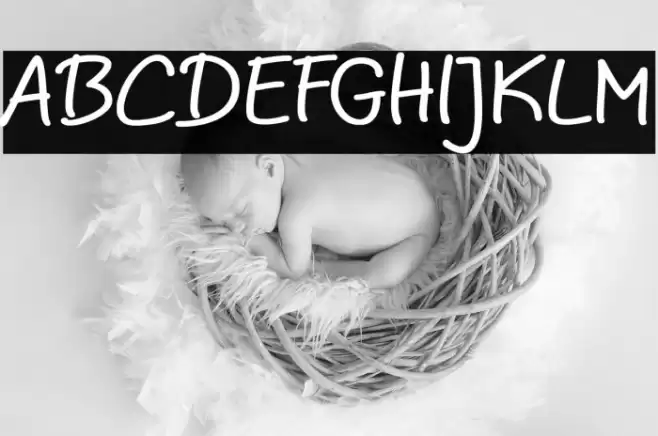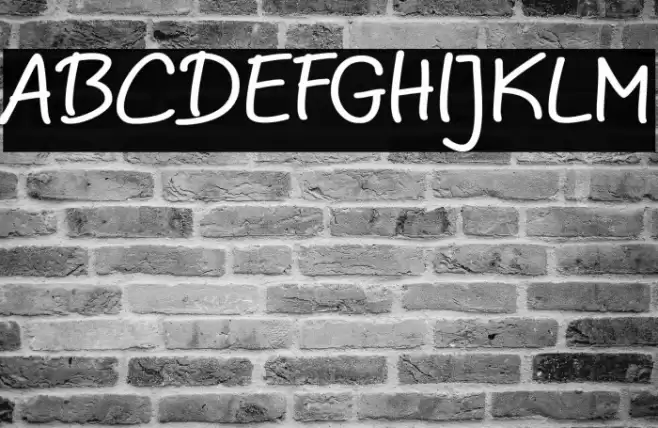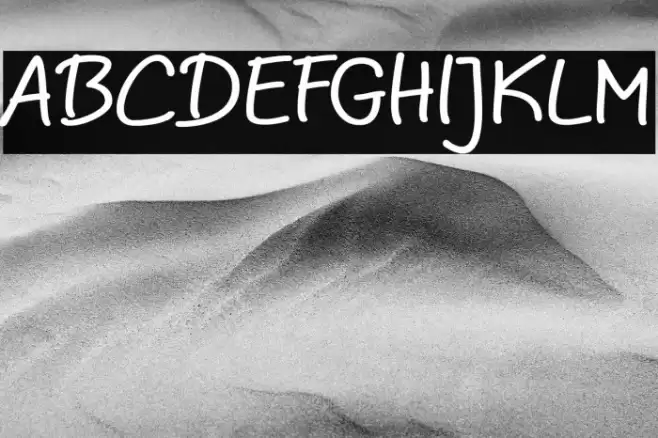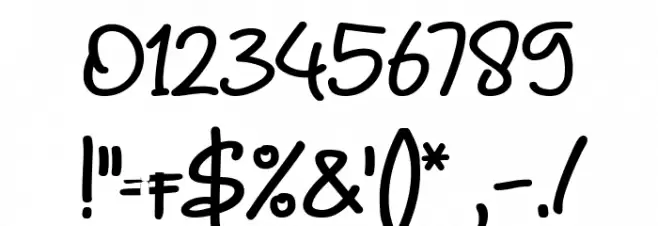
Noela Sherly Font
Noela Sherly Description
This font features a playful and casual handwritten style, characterized by its smooth, flowing curves and slightly irregular letterforms. The uppercase letters are bold and rounded, giving a friendly and approachable feel. The lowercase letters maintain a consistent style, with some letters having distinctive loops and swirls that add to the font's charm. Numbers are clear and easy to read, following the same playful aesthetic. Special characters are well-integrated, maintaining the overall whimsical appearance. This font is perfect for projects that require a personal touch or a sense of informality.
A playful, casual handwritten font with smooth, flowing curves from Uncategorized fonts.
- Proposed Projects: Ideal for greeting cards, invitations, children's books, and playful branding.
- Overall Style: Casual
- Use Case: Headlines, Logos, Invitations